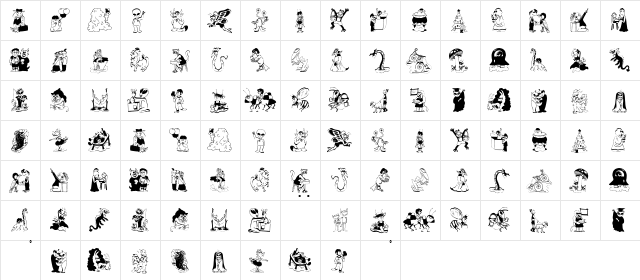
StrangersTwo Regular Font Preview
StrangersTwo Regular
Design Context for StrangersTwo Typeface
StrangersTwo is a composed and adaptable typeface that performs quietly and consistently across a wide range of design contexts.